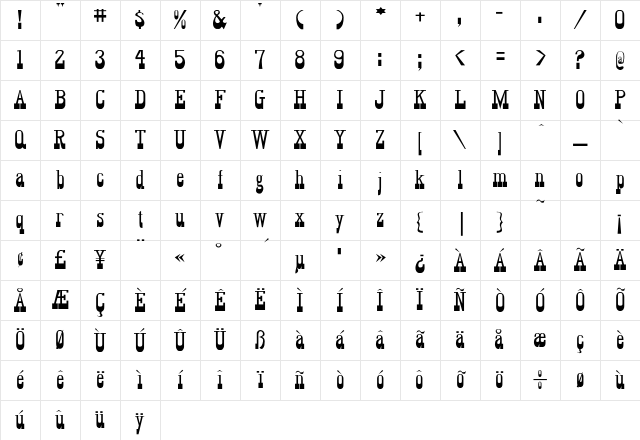
Squawvalley Regular
Design Context for Squawvalley
Squawvalley is a composed and adaptable typeface that performs quietly and consistently across a wide range of design contexts.